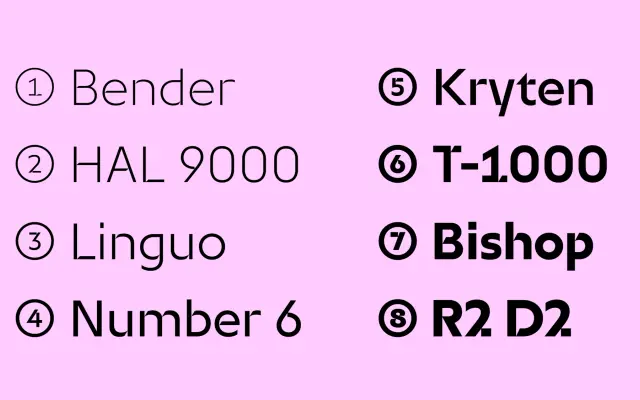
F37 Incise
An eight-weight incised sans that nods to the Benton pantograph and precision drawing instruments.
An incised sans by Rick Banks, drawn with the heritage of precision engineering in mind and pointing to Linn Boyd Benton, inventor of the pantograph that shaped much of twentieth-century type. Eight upright weights run from Thin to Black, with an Arabic companion extending the system. The flared, gently chiselled terminals sit between a humanist sans and a glyphic, useful for cultural identity, editorial design, watchmaking, premium spirits and any brand that wants quiet authority.
F37 reference Linn Boyd Benton, the inventor of the pantograph, and frame Incise around precision engineering and drawing instruments. The drawing carries flared, gently incised terminals, sitting between a humanist sans and a glyphic.